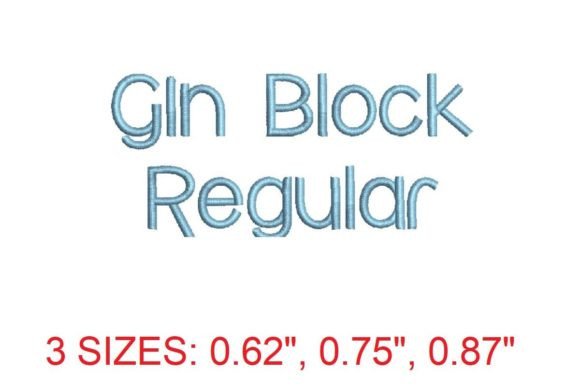
Discover the Gin Block Regular Embroidery Font
The Gin Block Regular Embroidery Font is a versatile and elegant choice for anyone involved in embroidery, whether you're a hobbyist, a professional designer, or a business owner looking to enhance your product offerings. This font brings a classic aesthetic to your projects, making it ideal for a wide range of applications—from personalized gifts to high-end home décor.
Why Choose Gin Block Regular?
The Gin Block Regular Embroidery Font stands out due to its clean lines and uniform lettering. Each character is designed with precision, ensuring that every stitch looks sharp and consistent. Its block-style design makes it particularly suitable for logos, monograms, and any project where clarity and visual appeal are key.
Additionally, the Gin Block Regular Embroidery Font is designed with practicality in mind. It features a comprehensive set of characters, including uppercase and lowercase letters, numbers, and punctuation marks, allowing for greater flexibility in design creation. The font’s scalability means it performs well across various sizes, maintaining quality whether you’re working on small labels or large banners.
Where Can You Use Gin Block Regular?
The versatility of the Gin Block Regular Embroidery Font makes it suitable for numerous applications:
- Clothing: Add a refined touch to t-shirts, jackets, and accessories with custom embroidered text.
- Home Décor: Create stylish wall art, throw pillows, and curtains using this elegant font.
- Gifts and Accessories: Personalize items such as bags, hats, and jewelry with unique embroidery.
- Business Cards and Branding: Enhance your brand identity with professionally stitched logos and tags.
Whether you're crafting a single piece or a full collection, the Gin Block Regular Embroidery Font offers the reliability and style needed to make an impact.
What Makes Gin Block Regular Stand Out?
The Gin Block Regular Embroidery Font is more than just a decorative element—it's a tool that empowers creators to bring their visions to life. Here are some of its standout features:
Timeless Design: With its classic appearance, this font remains relevant across trends, making it a long-term investment for any embroidery enthusiast.
High-Quality Stitching: The font is engineered to produce crisp, even stitches, ensuring that your finished projects look professional and polished.
Easy to Use: Designed for both beginners and experienced users, the Gin Block Regular Embroidery Font simplifies the process of creating custom embroidery designs.
Comprehensive Character Set: From A to Z and beyond, the font includes all necessary characters to support a wide variety of creative ideas.
Real-World Applications
Imagine a local boutique that wants to add a personal touch to its products. By using the Gin Block Regular Embroidery Font, they can create custom name tags for handbags, monogrammed towels, and branded packaging. These small details elevate the customer experience and differentiate the store from competitors.
Another example is a small business owner who sells embroidered coasters. By incorporating the Gin Block Regular Embroidery Font, they can offer a range of stylish options that appeal to both modern and traditional tastes. The font’s versatility allows for easy customization, making it a valuable asset in their design toolkit.
For those who run online stores or sell through marketplaces, the Gin Block Regular Embroidery Font can be a game-changer. It enables them to create eye-catching product listings and promotional materials that stand out in a crowded digital space.
Considerations and Limitations
While the Gin Block Regular Embroidery Font has many strengths, it’s important to consider its limitations before making a purchase. For instance, the font may not be suitable for projects requiring intricate detailing or highly stylized lettering. Additionally, while it performs well with PES files, it may require additional software or conversion tools for use with other embroidery formats.
It’s also worth noting that the font’s size and stitch information are provided as a summary. For detailed specifications on all 156 characters, users should refer to the More Sewing Info PDF available on the product page. This resource provides essential insights into how each character behaves at different sizes, helping users achieve optimal results.
Evaluating Suitability for Your Needs
Before deciding to use the Gin Block Regular Embroidery Font, it’s crucial to assess whether it aligns with your specific goals. If you’re looking for a font that combines elegance with functionality, this is an excellent choice. However, if your projects demand more complex or artistic designs, you may want to explore other options.
Ultimately, the Gin Block Regular Embroidery Font is a valuable addition to any embroidery creator’s toolkit. Whether you’re a seasoned professional or just beginning your journey, this font offers the quality, versatility, and timeless charm needed to elevate your work to the next level.